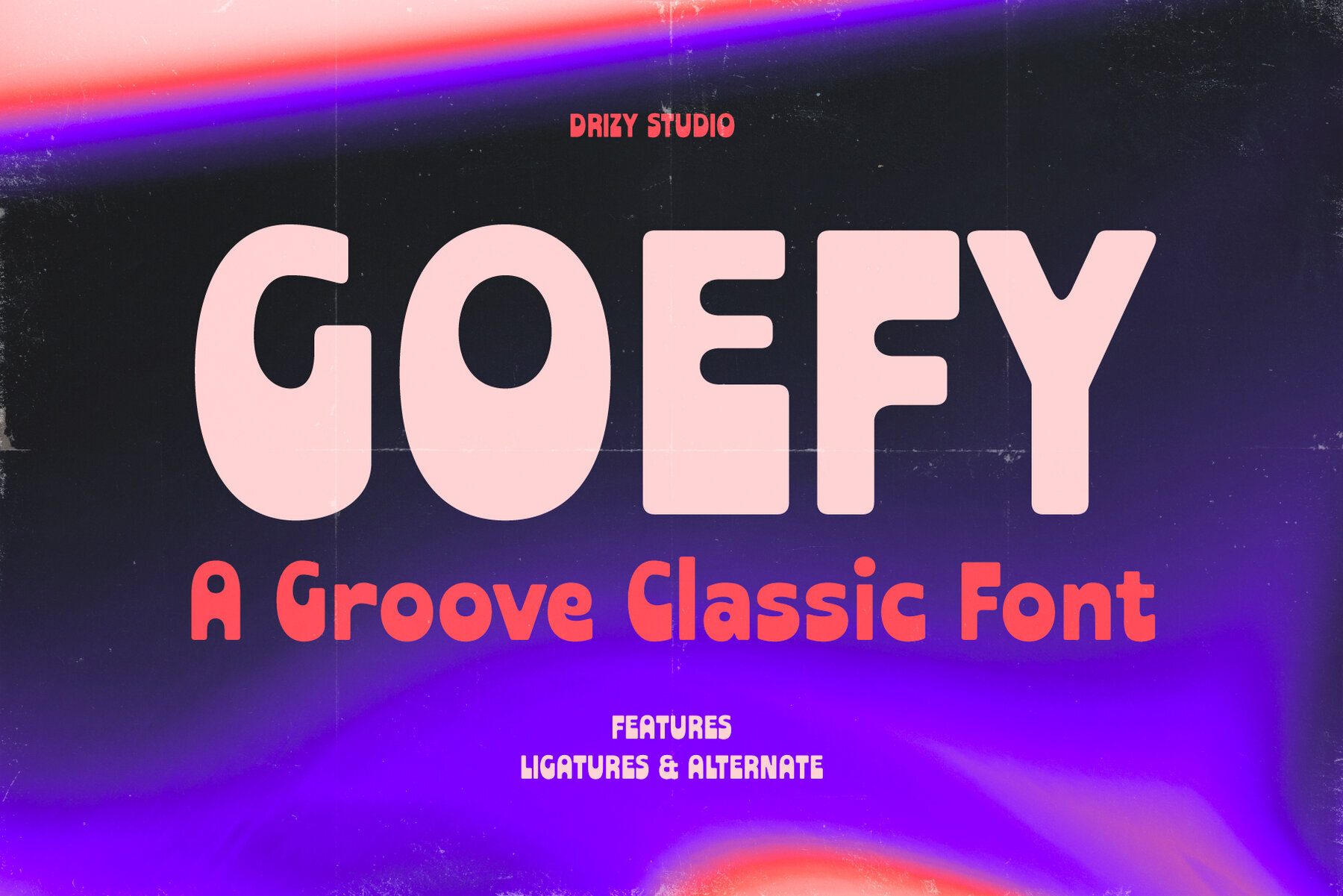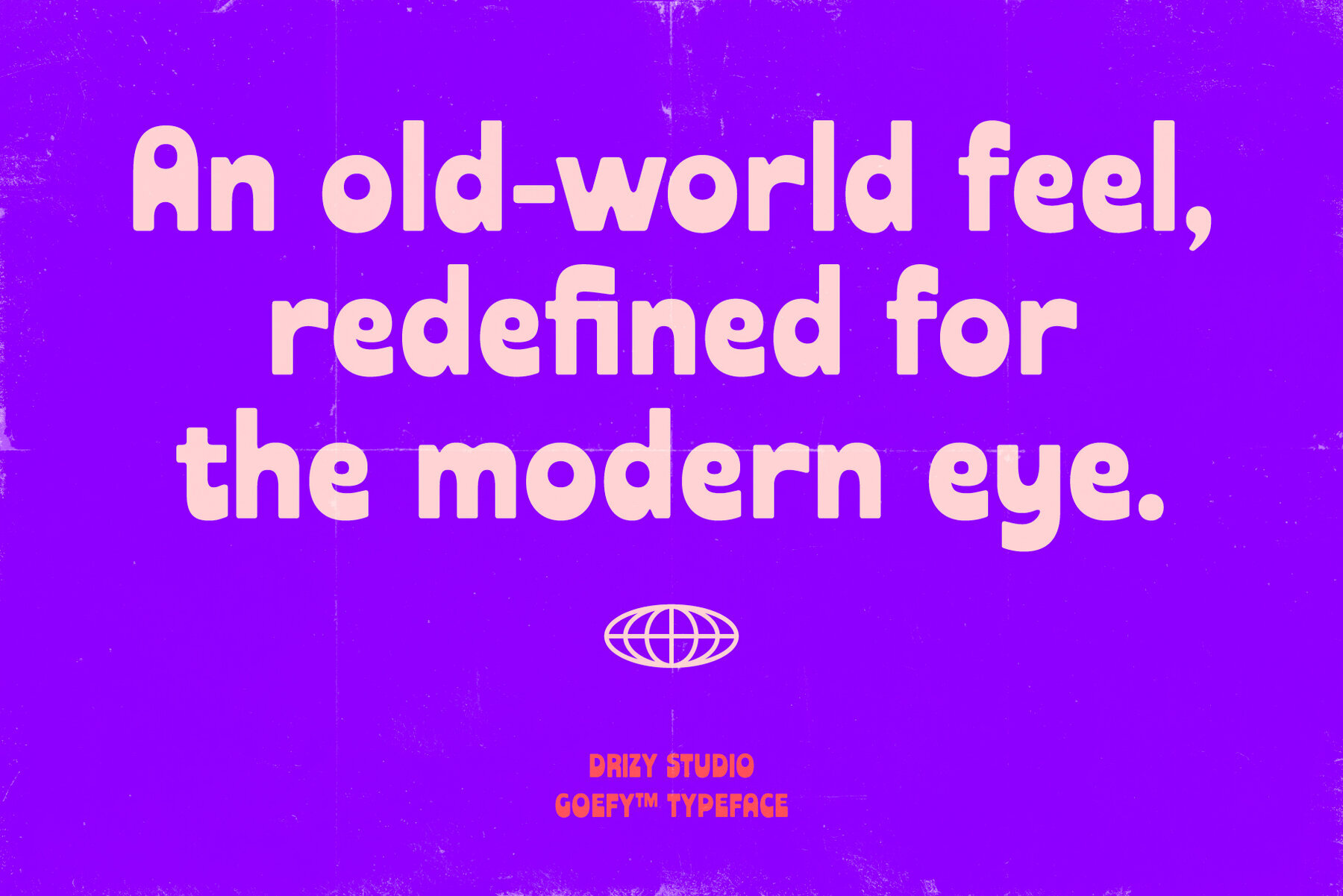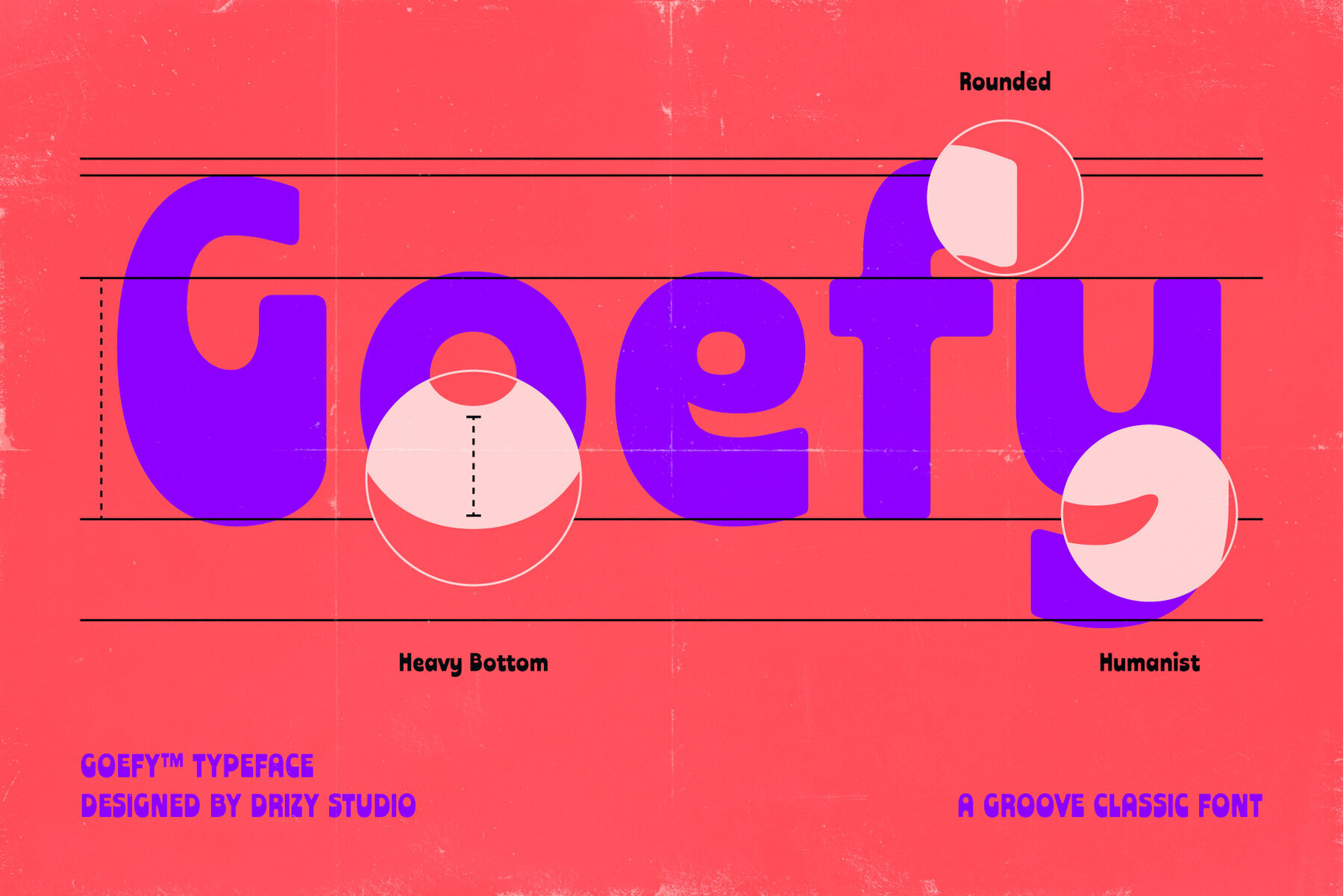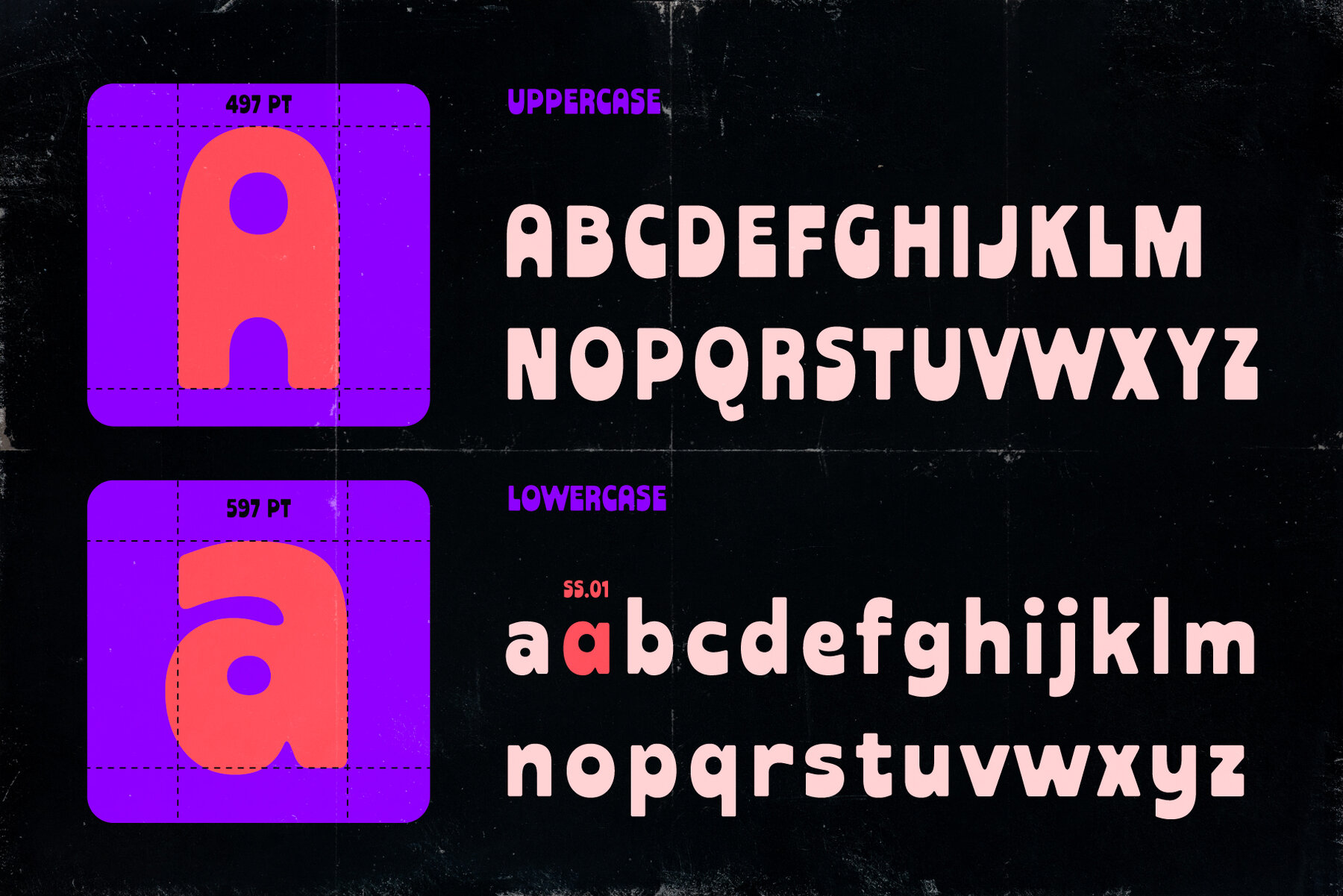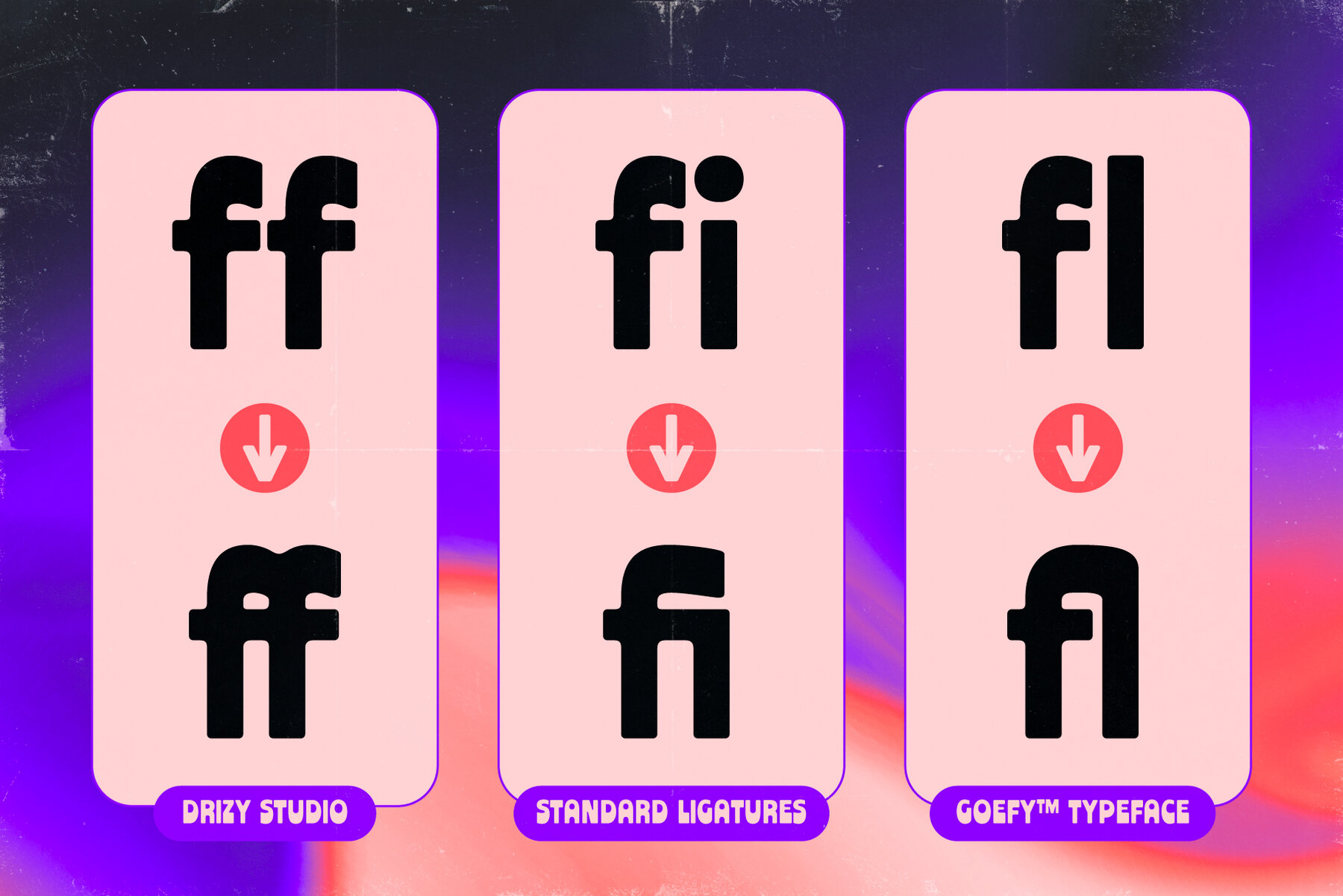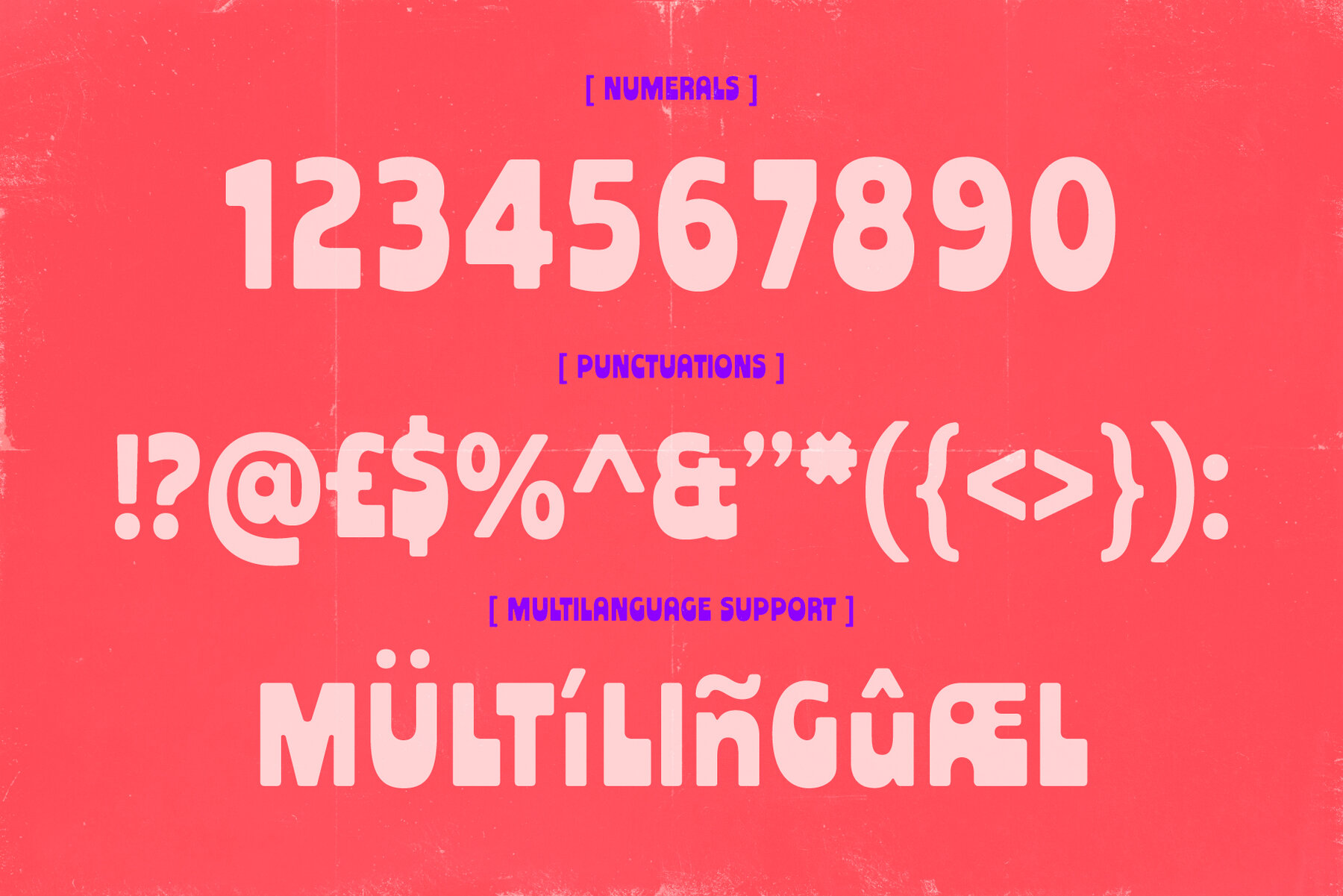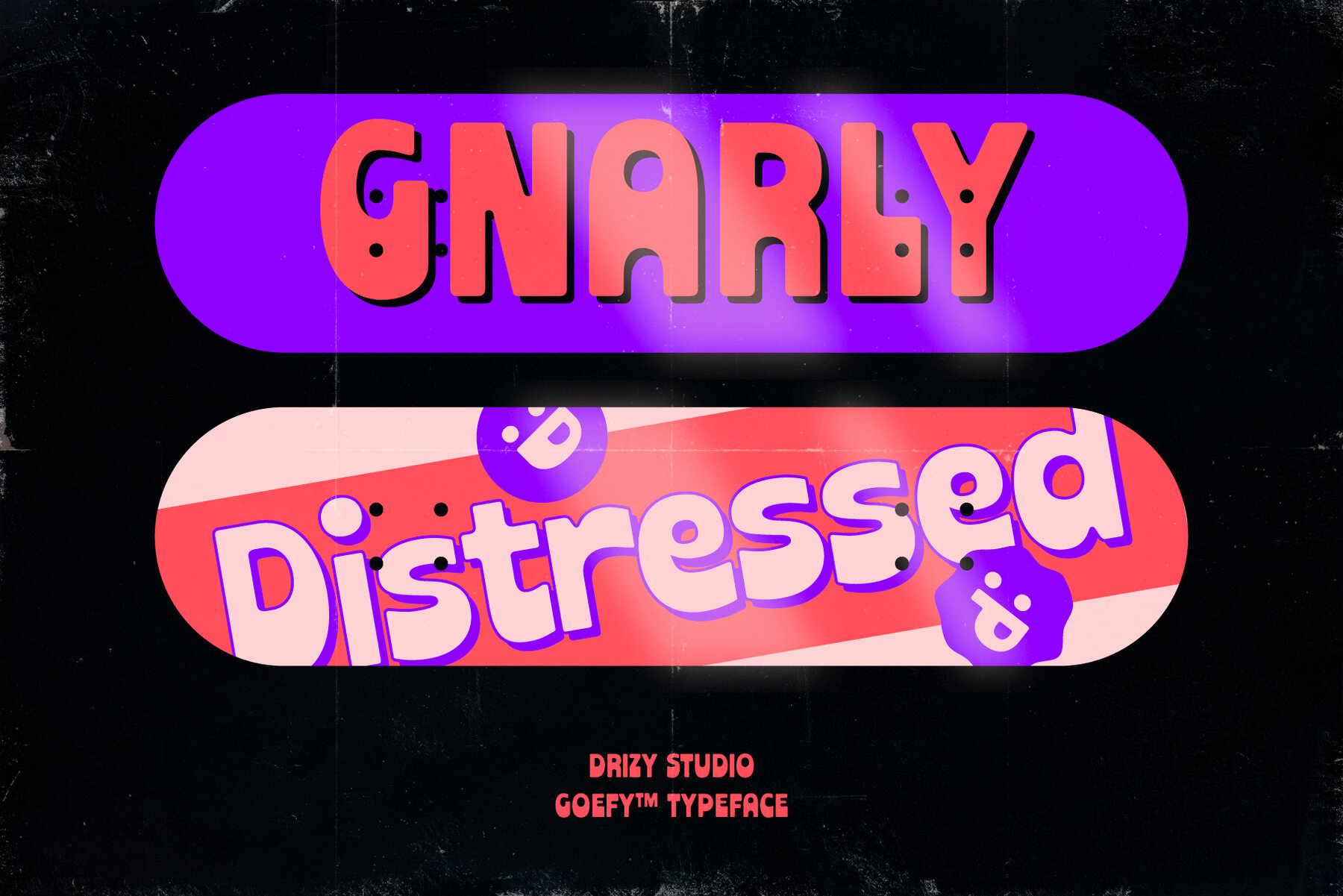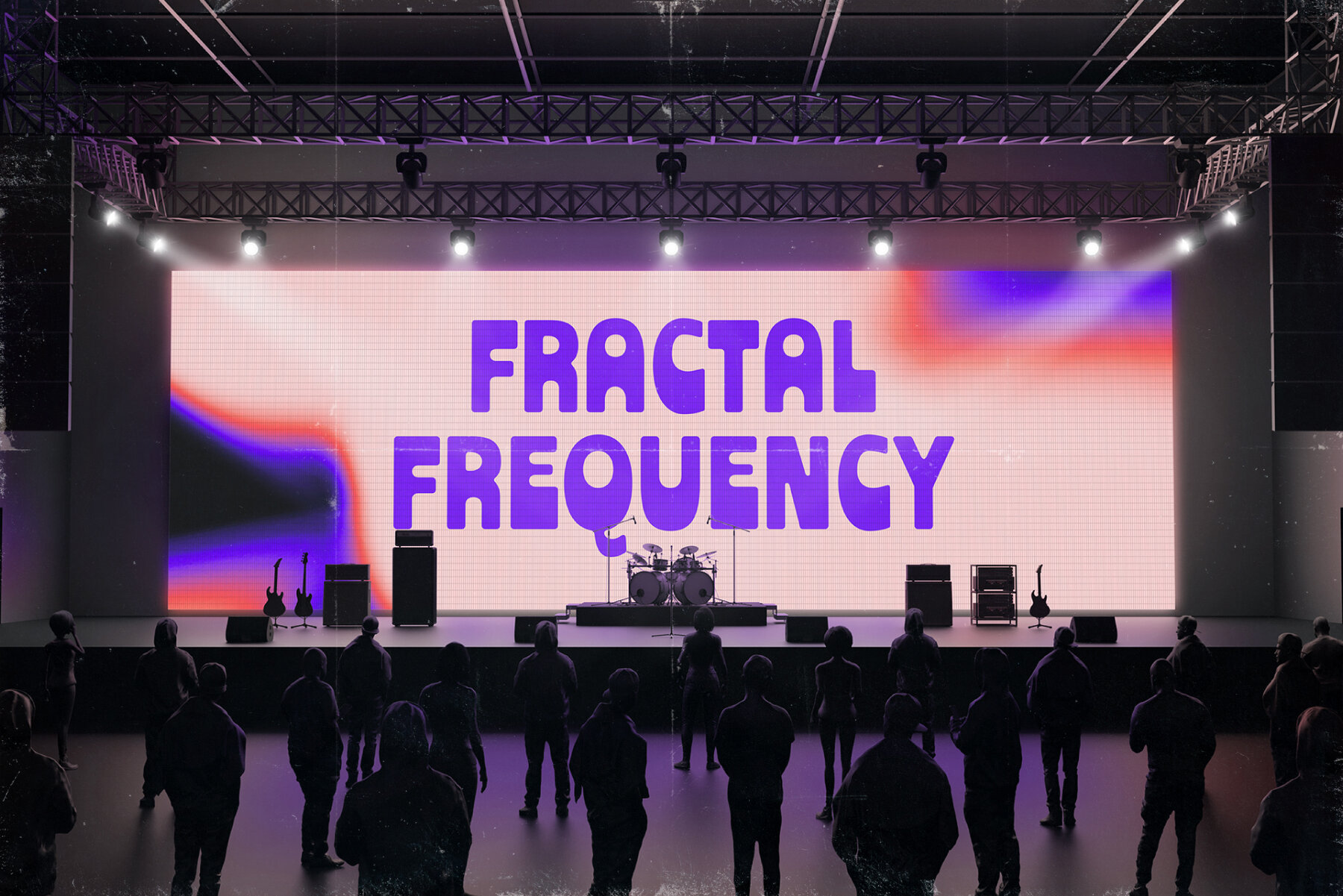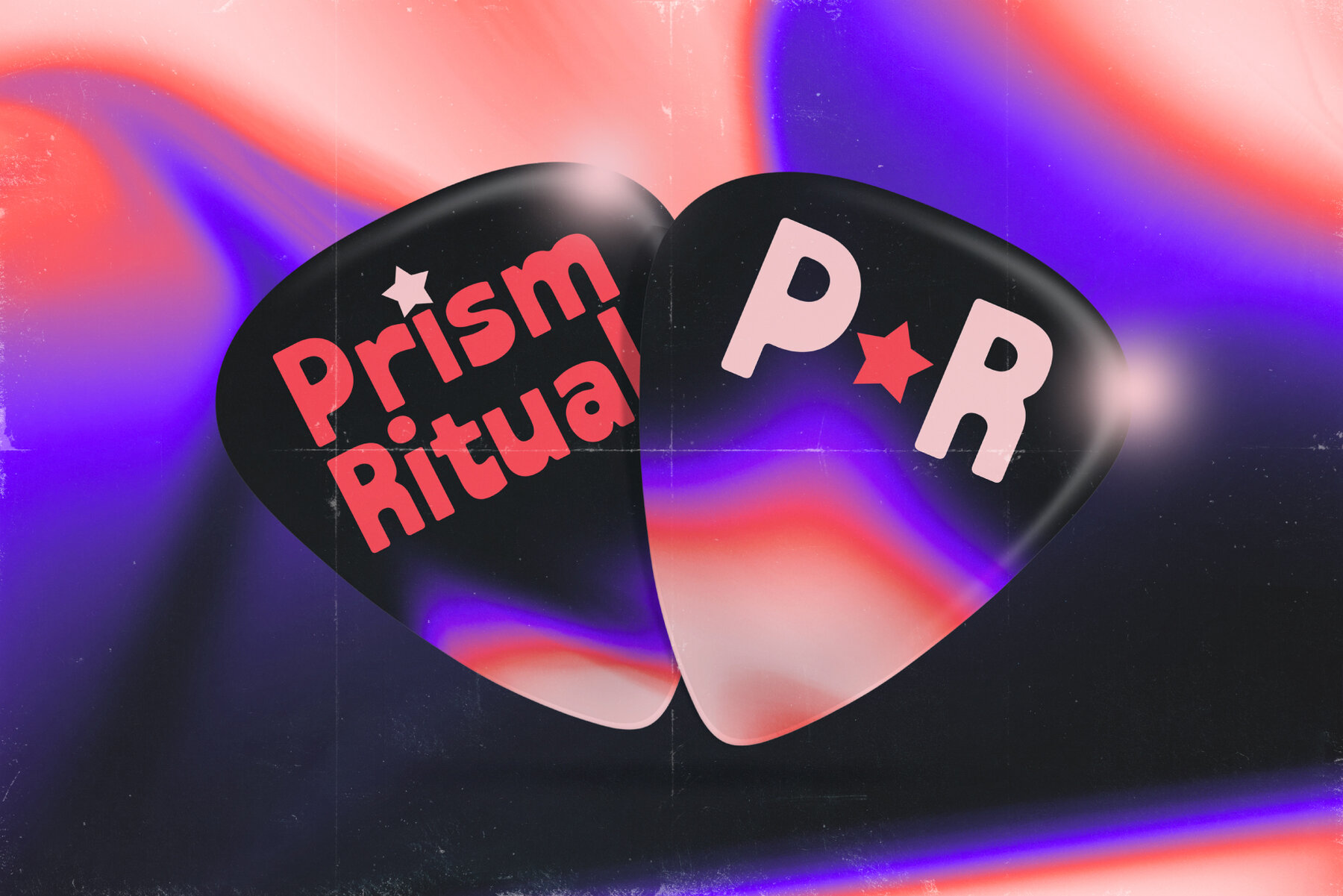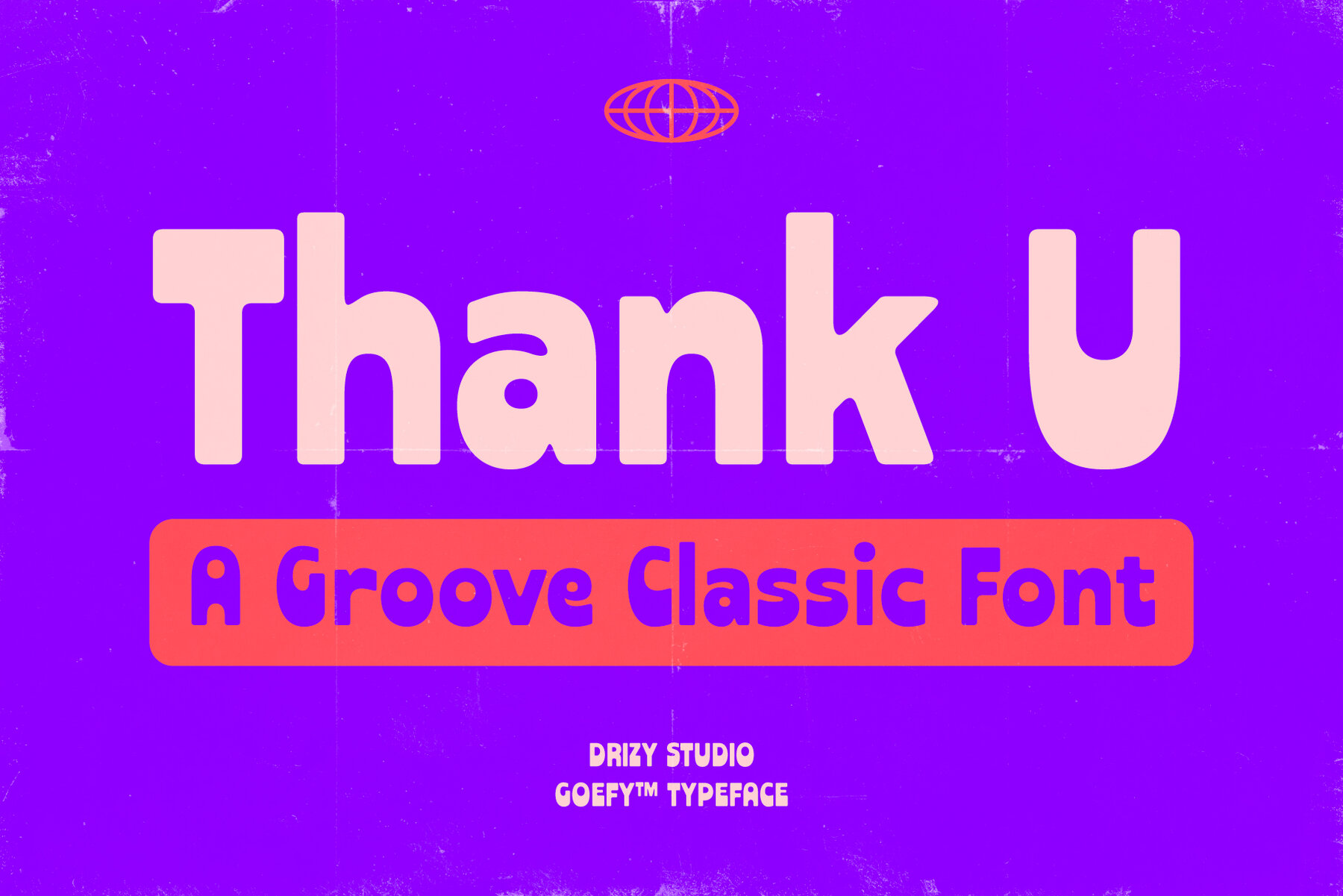
Goefy Font
Goefy Regular
Goefy Groove Classic Font embodies a retro vibe with a bold and confident twist. Drawing inspiration from classic signage, soul album covers, and mid-century advertising, this typeface infuses modern design projects with nostalgic energy. Its thick, grounded strokes combined with playful curves strike an ideal balance between funky charm and robust elegance.Goefy Groove Classic Font: Vintage Meets Modern